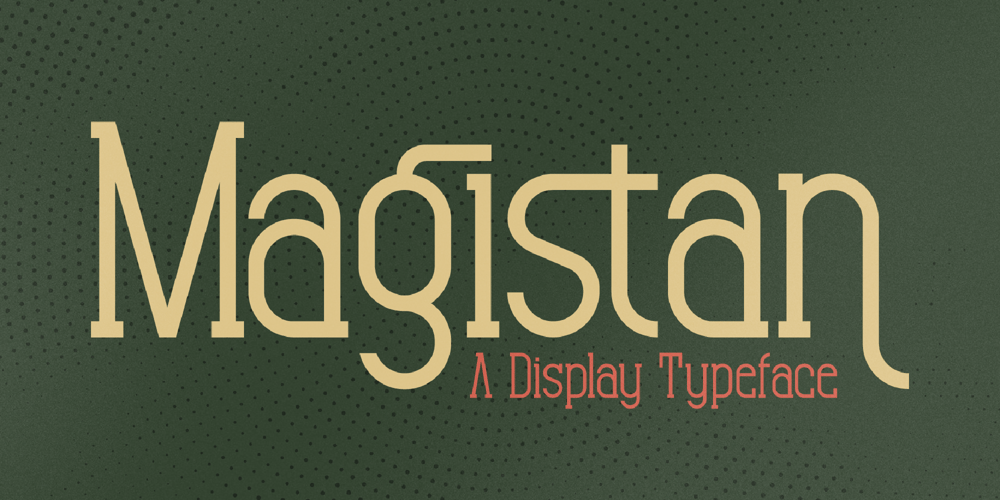
Magistan Font Family was designed by Heru Utama Putra and published by Letterena Studios. Magistan contains 2 styles and family package options. Magistan is a distinct and vintage styled slab serif font. It will create elegant & luxurious logos, books or movie title designs, fashion brands, magazine covers, clothes, lettering, quotes, and so much more.